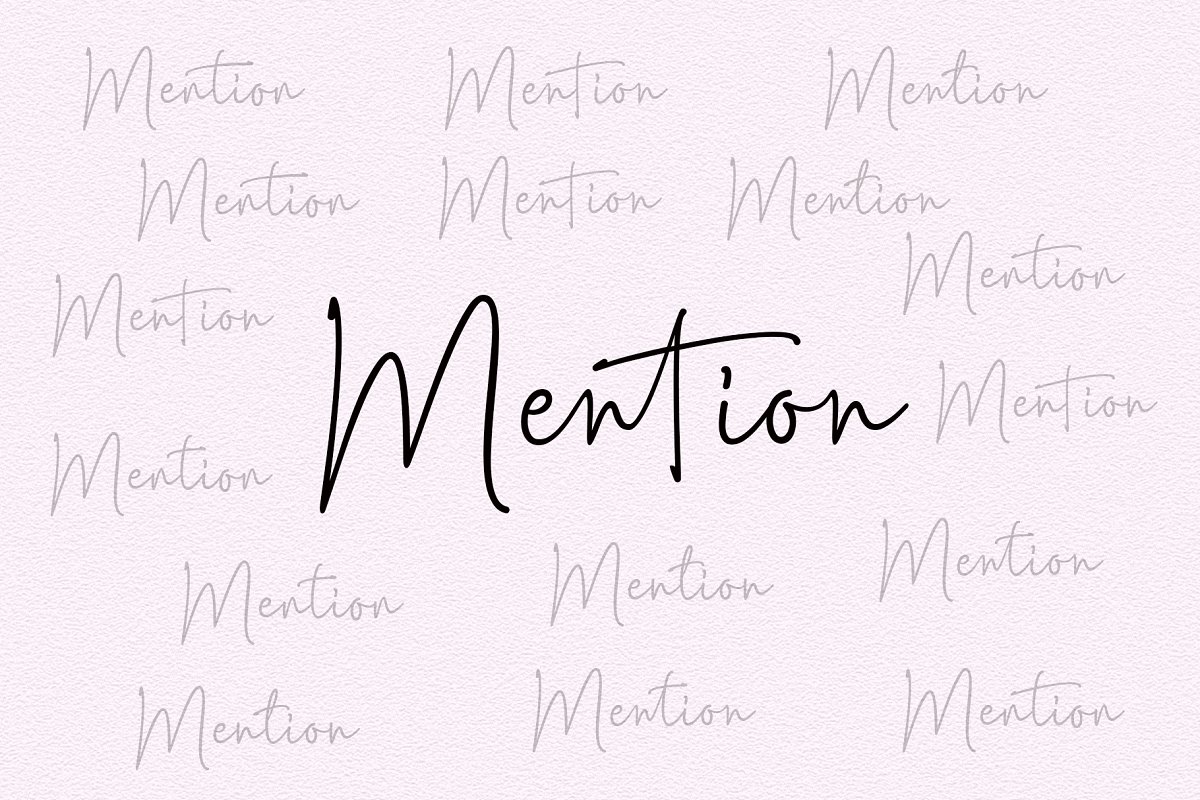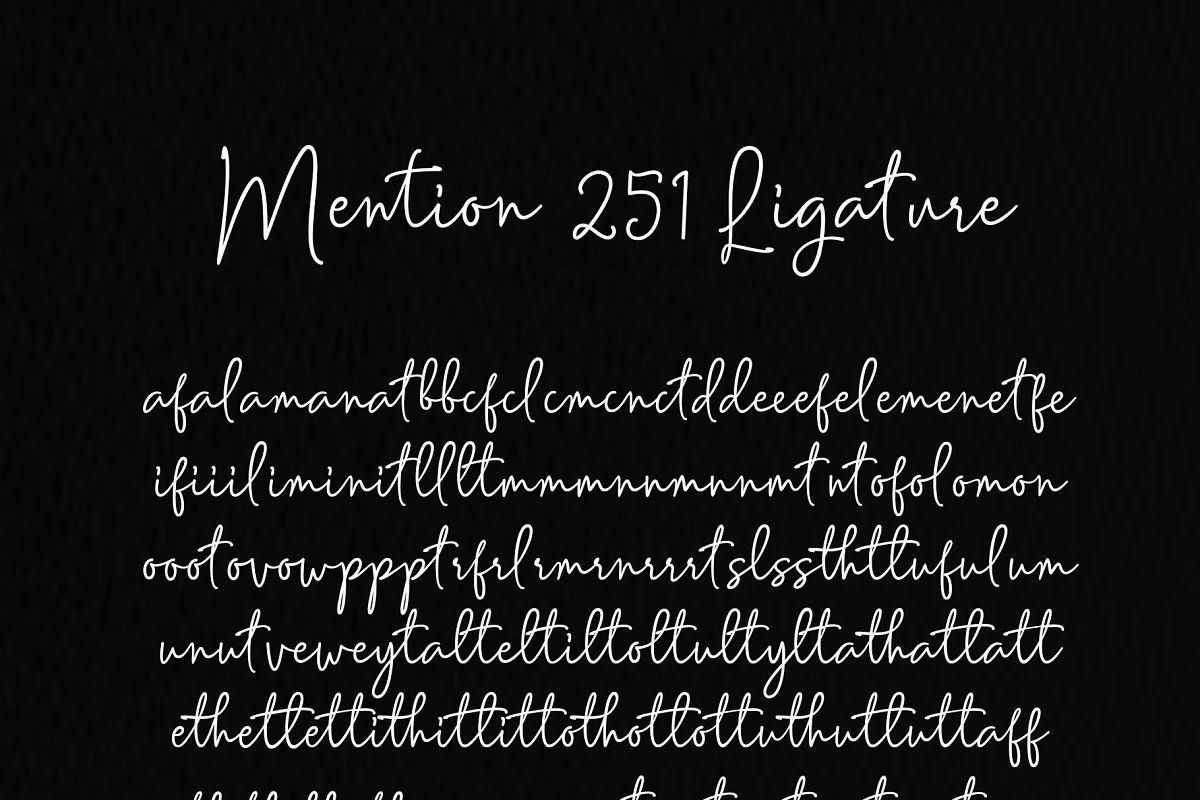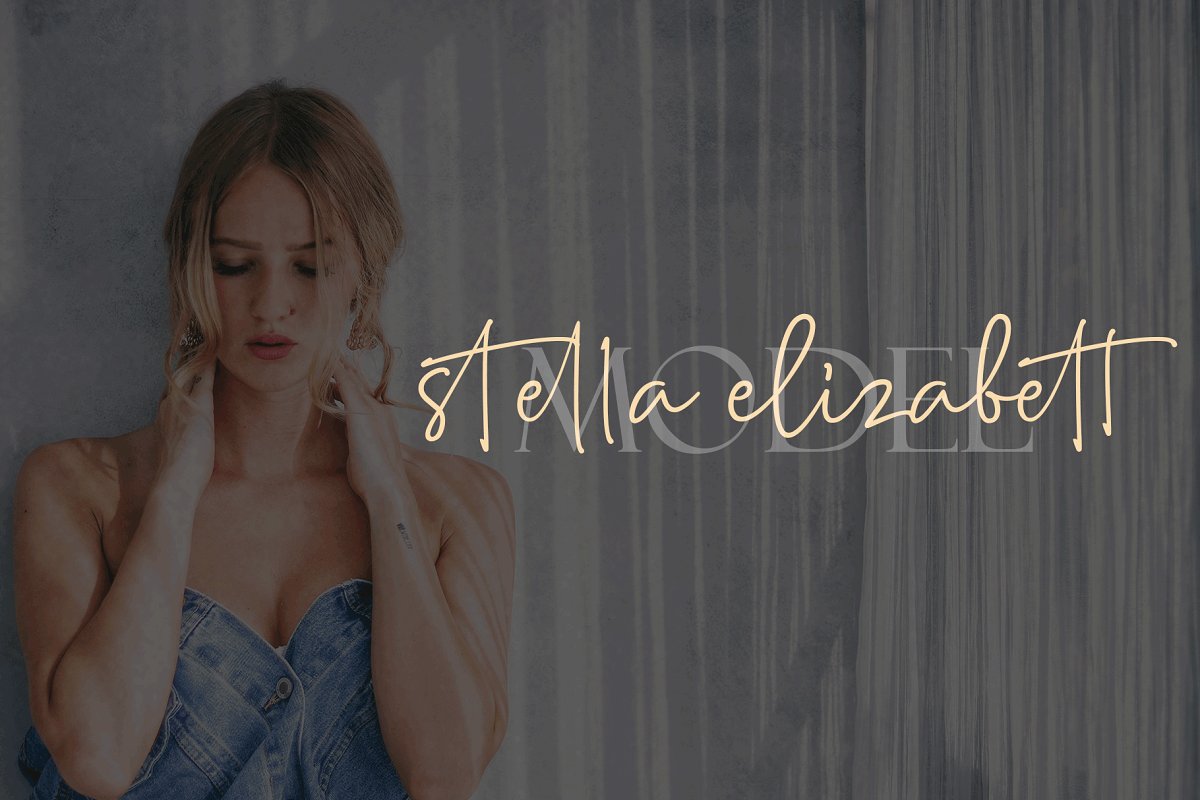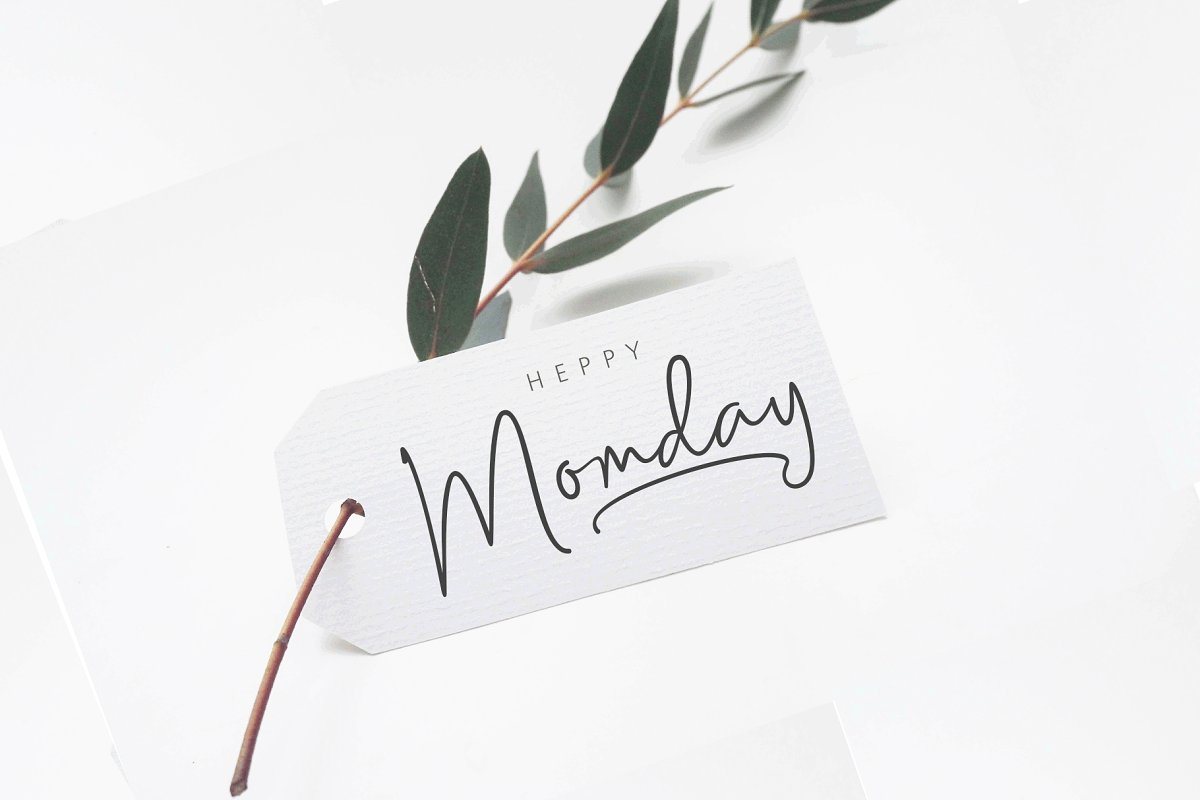
Mention Signature Font
Hi world!! Introducing Mention Script Font – an modern handwritten signature script with a natural flow. Its designed and shared by Meutuwah. Mention is another lovely modern signature font, which is combining the style of classic calligraphy with an modern style. combines from copperplate to contemporary typeface with a dancing baseline, modern and elegant touch. including alternates, and ligatures.